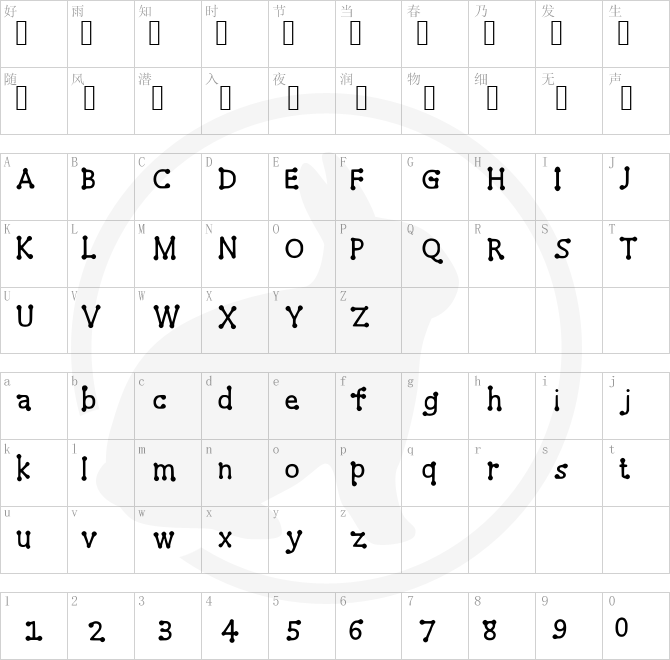
- Font Name:Fagr
Fagr.ttf is a very beautiful artistic font, Fagr.ttf is widely used in the design and printing of various books and pictures,Fagr.ttf has a strong visual impact,Fagr.ttf is a commonly used font in newspapers, magazines and books, and is used in posters, e-commerce Poster design, store design, logo design, font design and other fields.Fagr.